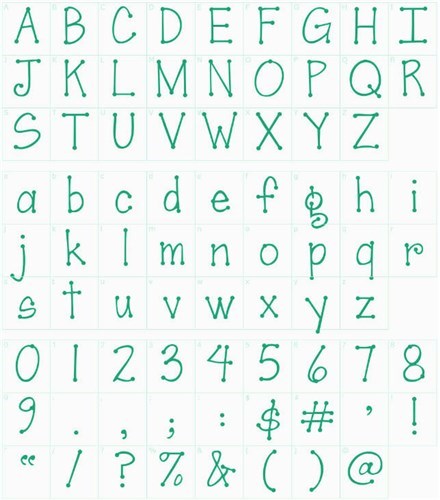
Easy Embroidery is happy to present Mocking Bird Embrilliance Font - Playful Whimsical Style - BX font machine embroidery font which has Playful machine embroidery font showcased in a vibrant mix of brown and green, ideal for casual home decor projects like throw pillows and tote bags. Available in BX font and Embrilliance formats. included. If you would like to view more embroidery fonts and alphabets please search our embroidery fonts page.
Mocking Bird Embrilliance Font - Playful Whimsical Style - BX font